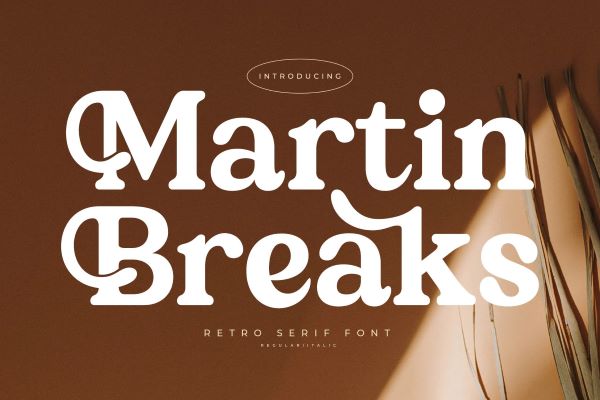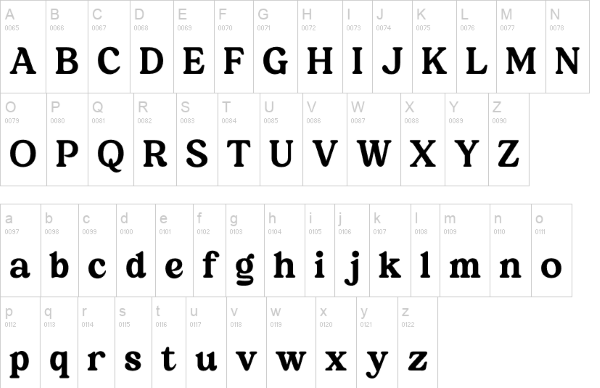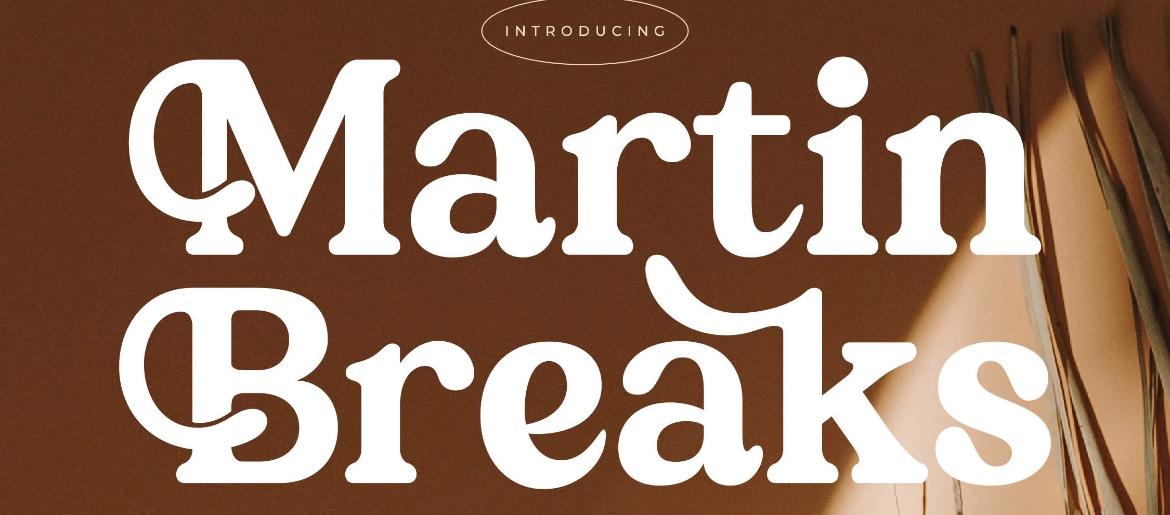
Martin Breaks Font
Martin Breaks Font is a refined luxury serif typeface designed to bring elegance and sophistication to your designs. With graceful proportions and polished details, it delivers a timeless aesthetic suited for high-end visual identities.
➤ Font Name: Martin Breaks
➤ Designer: Letterena Studios
➤ Style: Serif